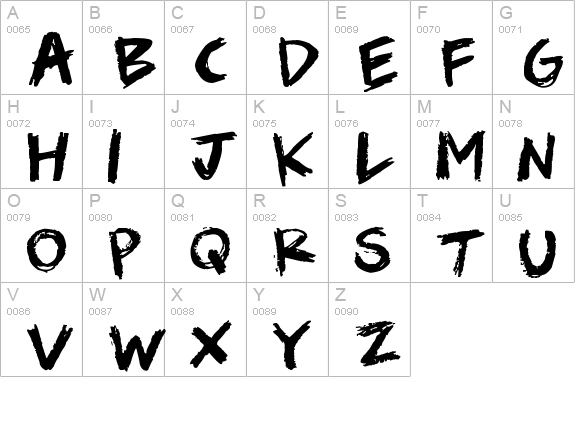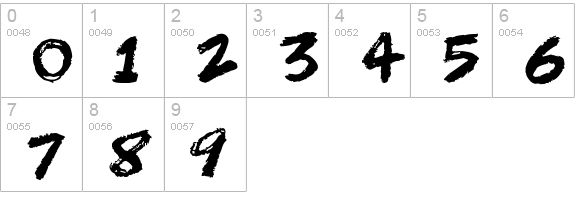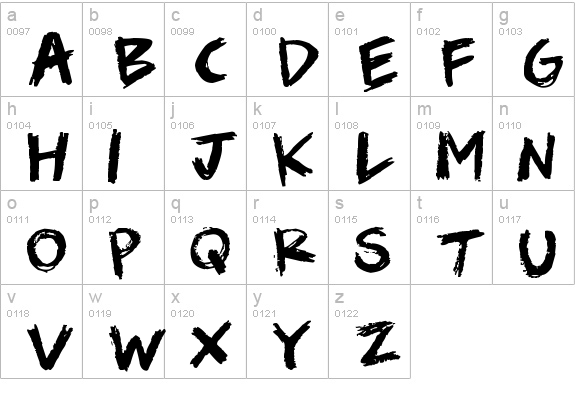
Scribble Scrawls Font Details
Scribble Scrawls is a free for personal use font in the Script category, designed by Darrell Flood. It has been downloaded 33 times and is available for Windows, Mac and Linux.
Introducing Scribble Scrawls font, a quirky and playful typeface that brings a unique hand-drawn charm to your projects. With its whimsical and irregular strokes, Scribble Scrawls captures the essence of doodling on a piece of paper, adding a fun and creative touch to your designs.
This free font is perfect for adding a personal and homemade feel to invitations, greeting cards, posters, and more. Whether you're looking to add a touch of whimsy or create a bold statement, Scribble Scrawls has got you covered.